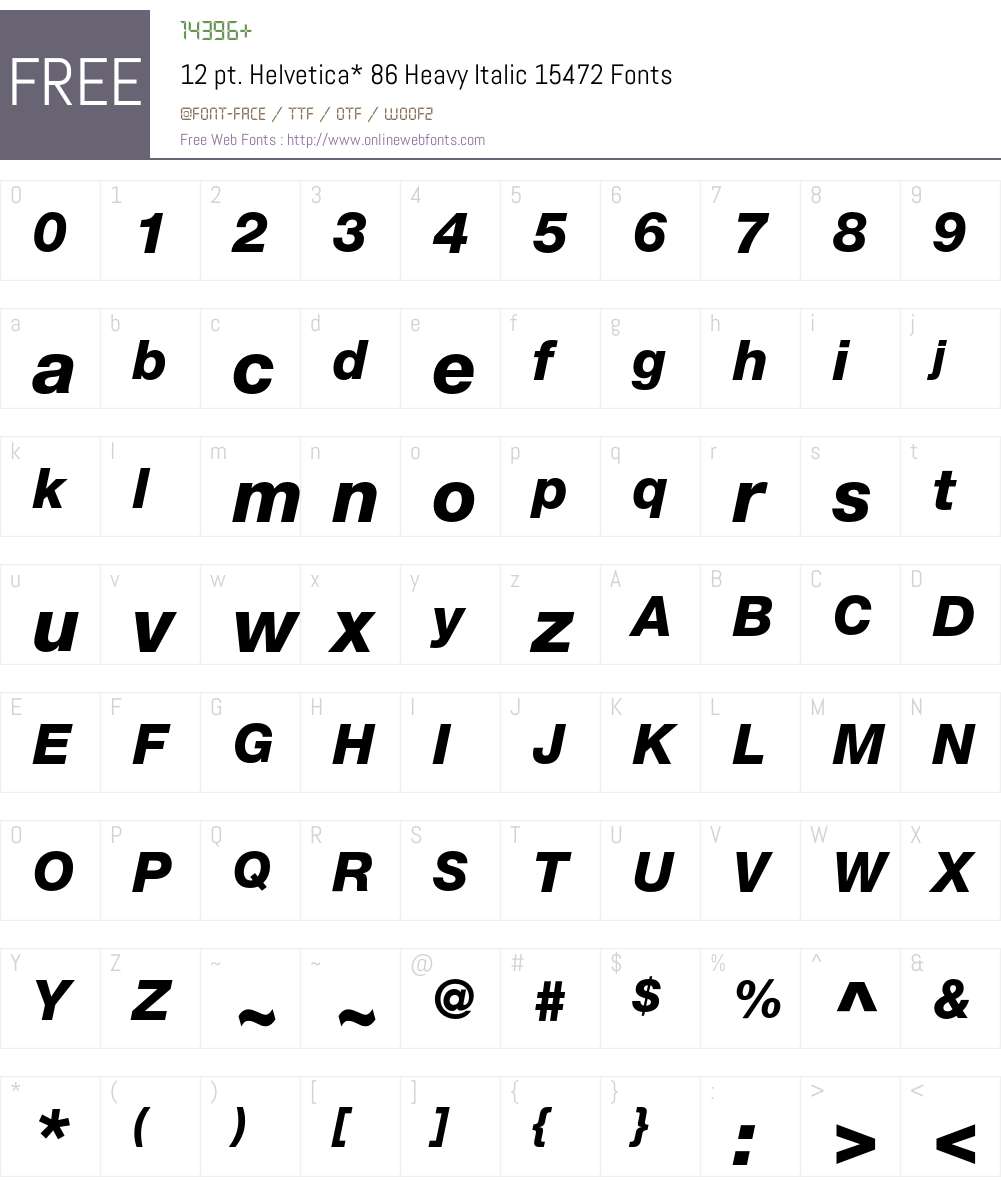
This font style is designed by max meidinger in 1983. Available in three optical sizes—micro, text, and display—every character in helvetica now has been redrawn and refit; Enter custom sample text to change the font previews below
This Typeface Font Has Become The Font Of Choice For Almost All Designers And The General Public.
Brands like bmw have used it for a long time. This font is available for free usage in your personal project. It is highly used in various fields because it is easy to read and understand.